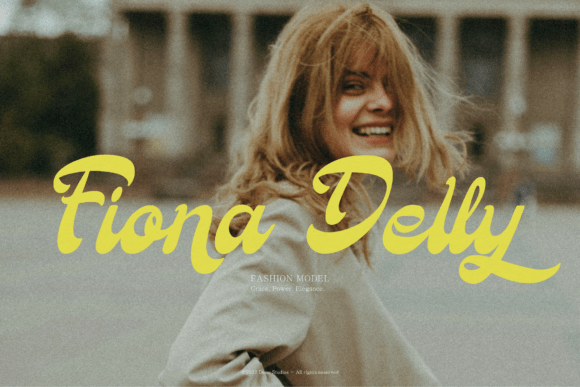
Love Simpathy Font: The Perfect Bold Script Font for Your Creative Projects
Are you looking for a font that can add a touch of elegance and sophistication to your creative projects? Look no further than Love Simpathy Font, a bold script font that is perfect for a wide range of applications. In this article, we’ll take a closer look at Love Simpathy Font, its features, and how you can use it to elevate your designs.
What is Love Simpathy Font?
Love Simpathy Font is a bold script font that is designed to add a touch of personality to your creative projects. Its elegant and flowing lines make it perfect for projects that require a sophisticated and eye-catching look. Whether you’re working on a logo, branding project, or marketing materials, Love Simpathy Font is a great choice.
Features of Love Simpathy Font
Love Simpathy Font has several features that make it a great choice for your creative projects. Some of its key features include:
- Bold and Elegant Design: Love Simpathy Font has a bold and elegant design that is perfect for making a statement.
- Script Font Style: The font has a script font style that gives it a personal and handwritten touch.
- High-Quality Design: The font is designed with high-quality lines and curves, making it perfect for use in a variety of applications.
- Easy to Read: Despite its bold design, Love Simpathy Font is easy to read, making it perfect for use in body text and headlines.
Uses of Love Simpathy Font
Love Simpathy Font is a versatile font that can be used in a wide range of applications. Some of the most popular uses of the font include:
- Logos and Branding Projects: Love Simpathy Font is perfect for use in logos and branding projects, where a bold and elegant font is needed.
- Homeware Designs: The font can be used in homeware designs, such as on mugs, plates, and other household items.
- Product Packaging: Love Simpathy Font can be used in product packaging to add a touch of elegance and sophistication.
- Mugs and Apparel: The font can be used on mugs, t-shirts, and other apparel to create unique and eye-catching designs.
- Posters and Quotes: Love Simpathy Font can be used in posters and quotes to add a touch of personality and style.
- Book Covers and Invitation Cards: The font can be used in book covers and invitation cards to create a bold and elegant look.
Benefits of Using Love Simpathy Font
There are several benefits to using Love Simpathy Font in your creative projects. Some of the most significant benefits include:
- Unique and Eye-Catching Designs: Love Simpathy Font allows you to create unique and eye-catching designs that will stand out from the crowd.
- Elegant and Sophisticated Look: The font adds an elegant and sophisticated touch to your designs, making them perfect for a wide range of applications.
- High-Quality Design: The font is designed with high-quality lines and curves, making it perfect for use in a variety of applications.
Tips for Using Love Simpathy Font
Here are some tips for using Love Simpathy Font:
- Use it Sparingly: Love Simpathy Font is a bold font, so use it sparingly to avoid overwhelming your design.
- Pair it with Other Fonts: Pair Love Simpathy Font with other fonts to create a unique and eye-catching look.
- Experiment with Colors: Experiment with different colors to find the one that works best with Love Simpathy Font.
- Use it in Headlines: Love Simpathy Font is perfect for use in headlines, where a bold and elegant font is needed.
Love Simpathy Font is a bold script font that is perfect for a wide range of creative projects. Its elegant and flowing lines make it perfect for adding a touch of sophistication and elegance to your designs. With its high-quality design, ease of use, and versatility, Love Simpathy Font is a great choice for anyone looking to create unique and eye-catching designs.